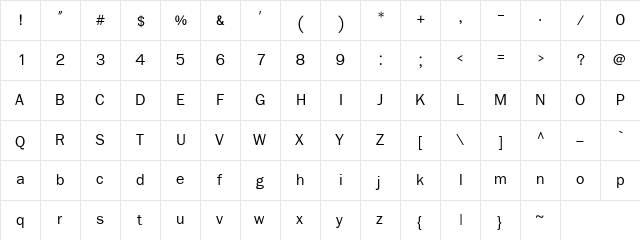
FreesiaUPC Regular
Design Context for FreesiaUPC Typeface
FreesiaUPC offers clean, dependable letterforms without strong stylistic allegiance, making it a practical choice for designers who need flexibility.